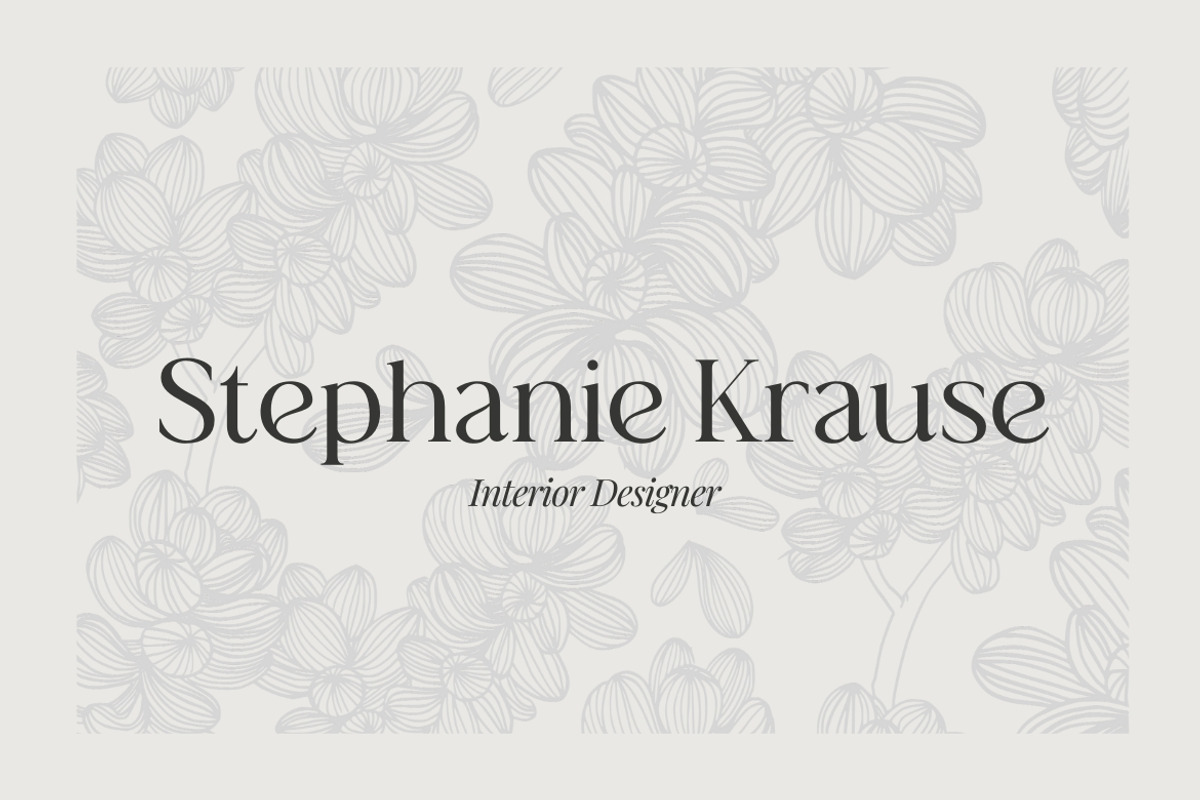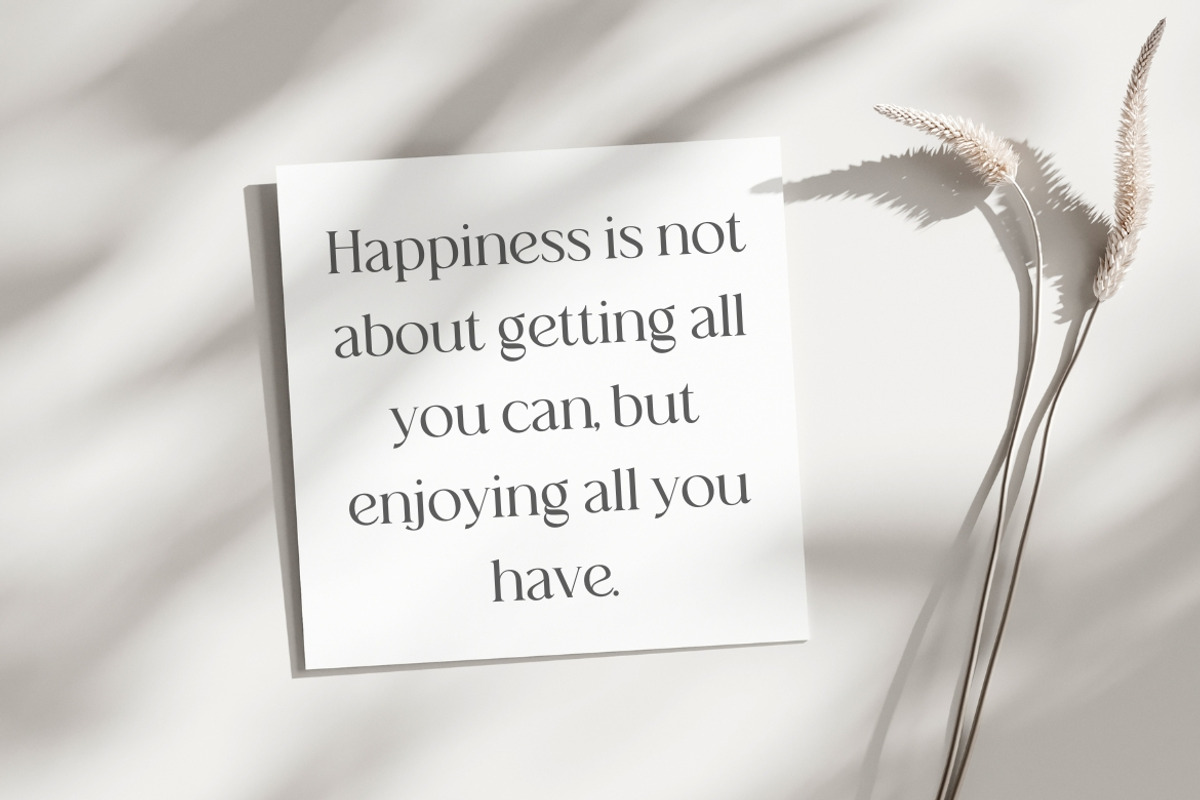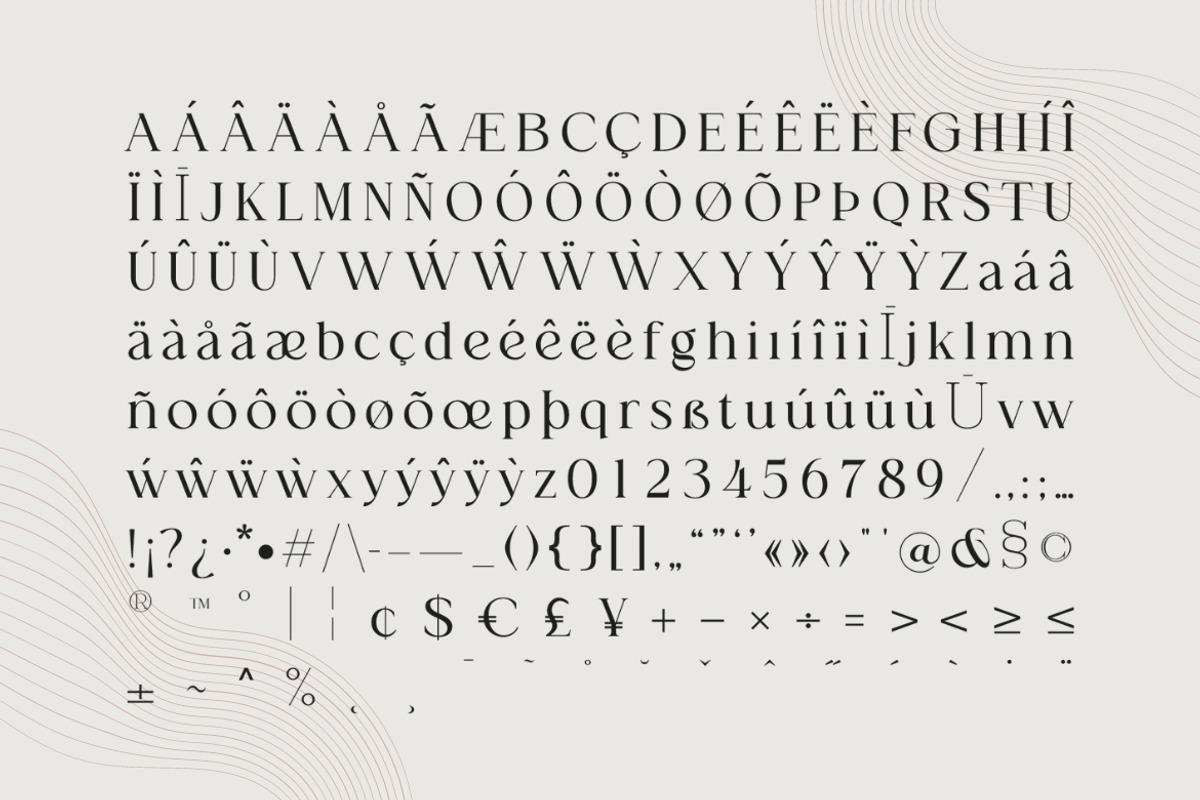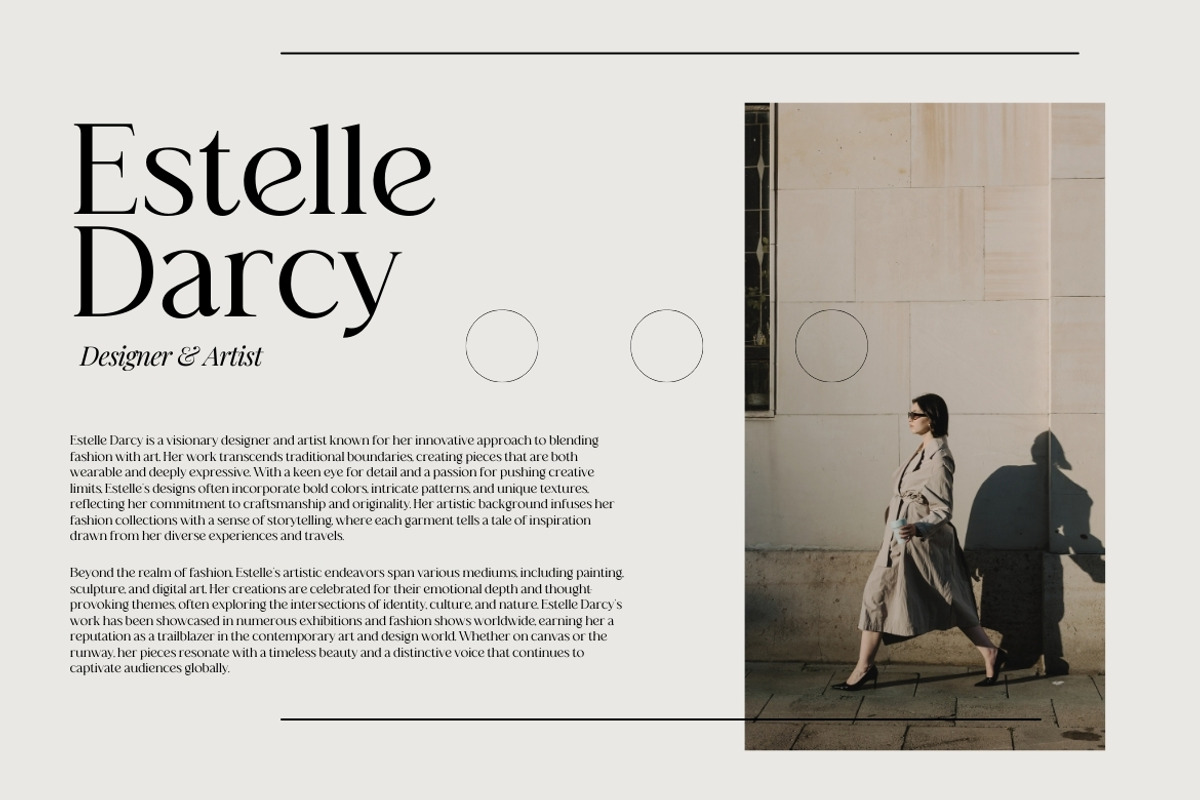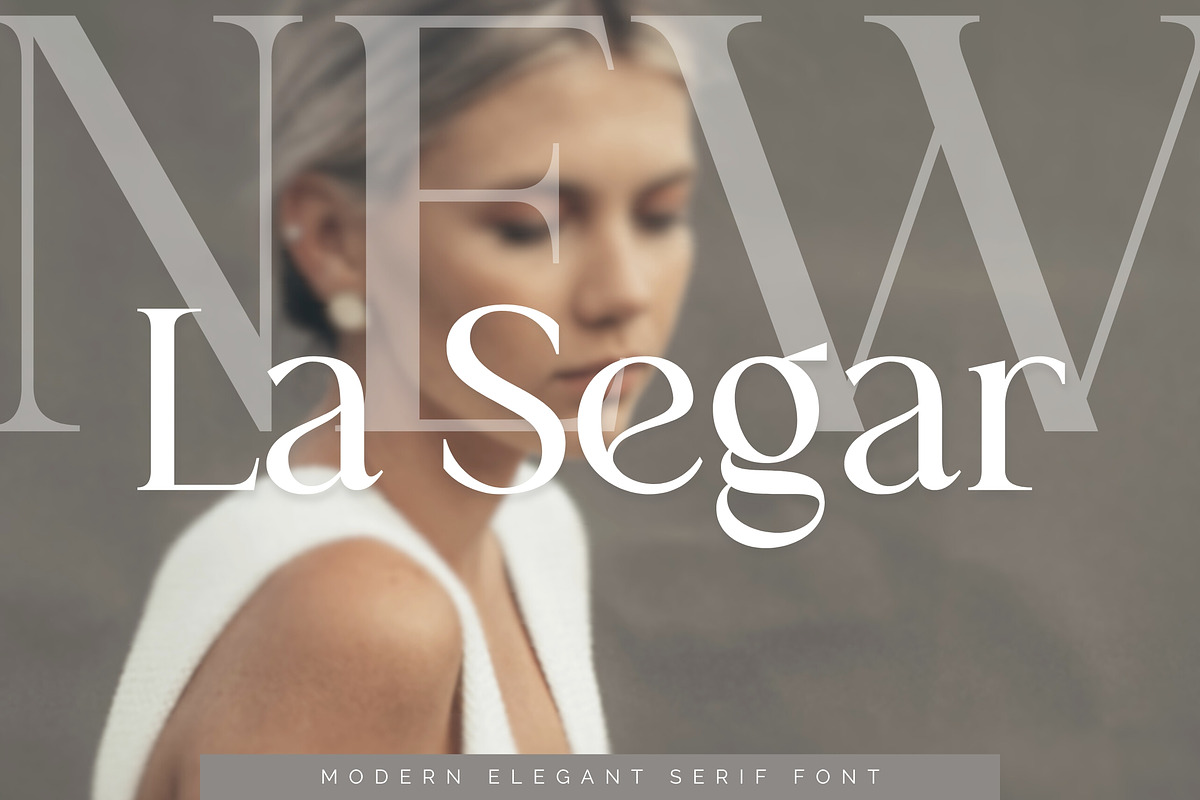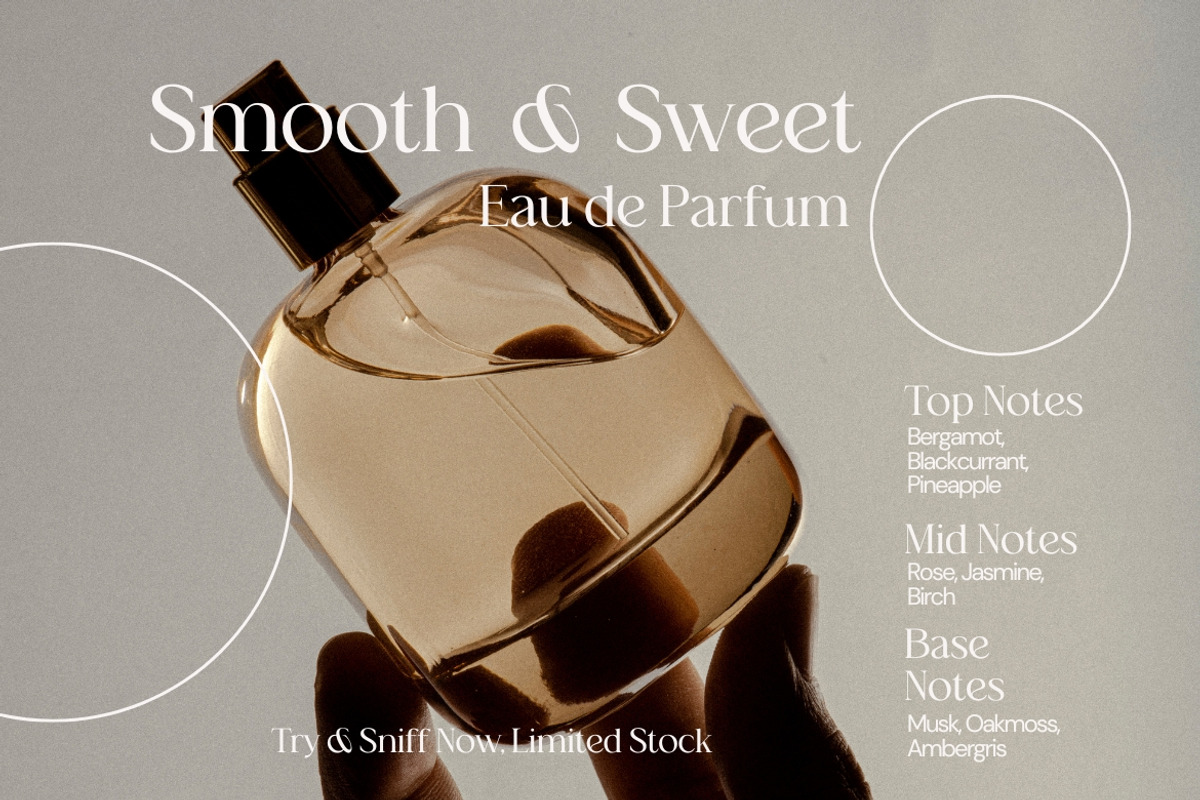
La Segar - Modern Elegant Serif Font
Introducing our new La Segar, modern serif font with elegant style this is perfect for branding, logos, invitation, magazines, product packaging and more.